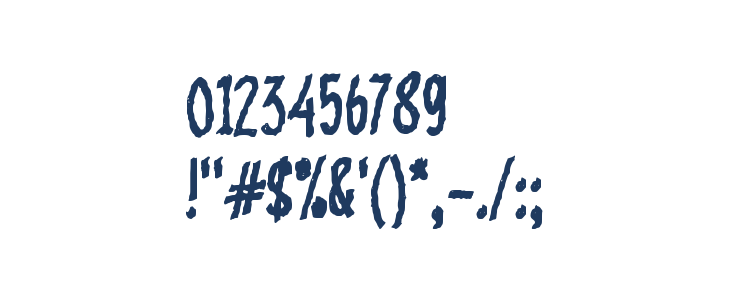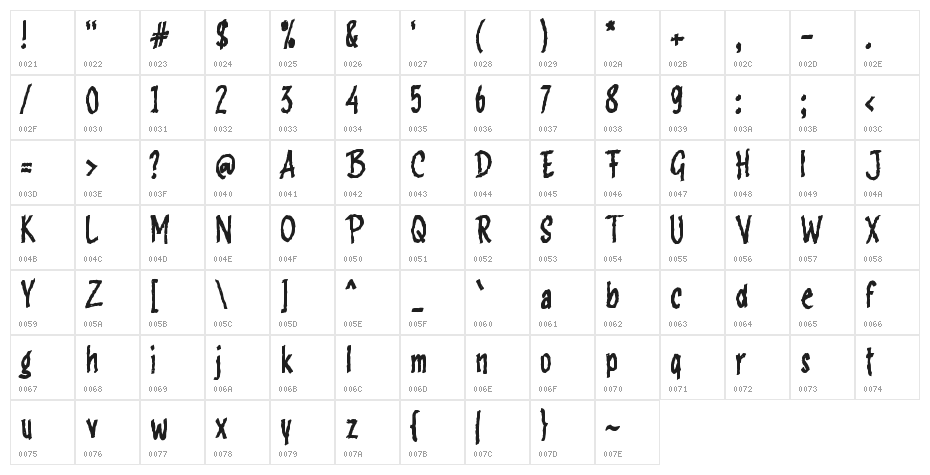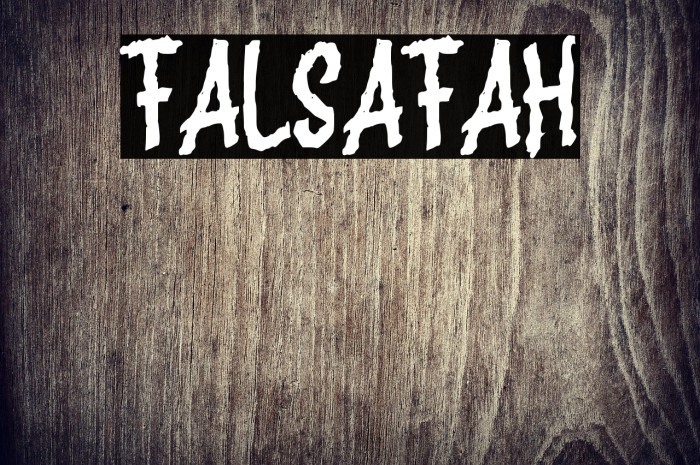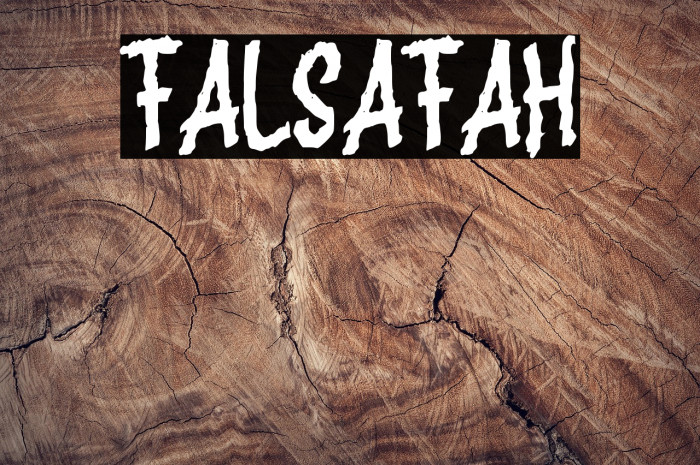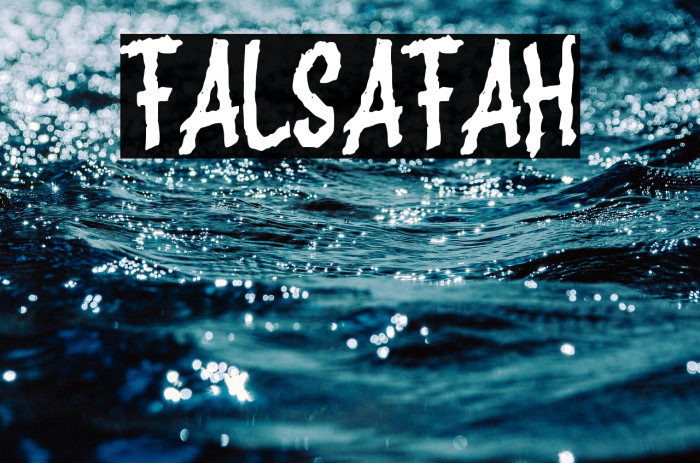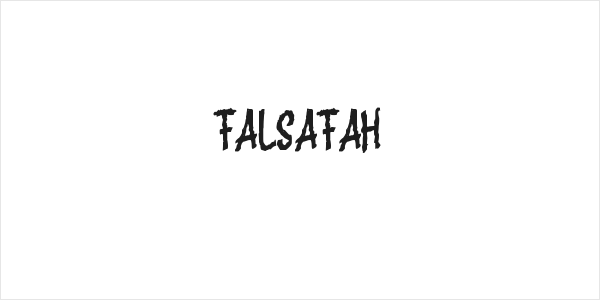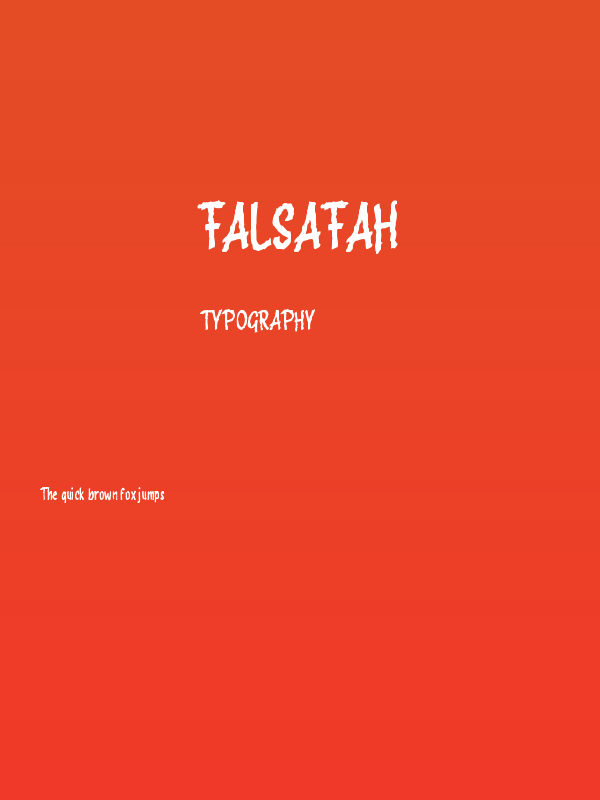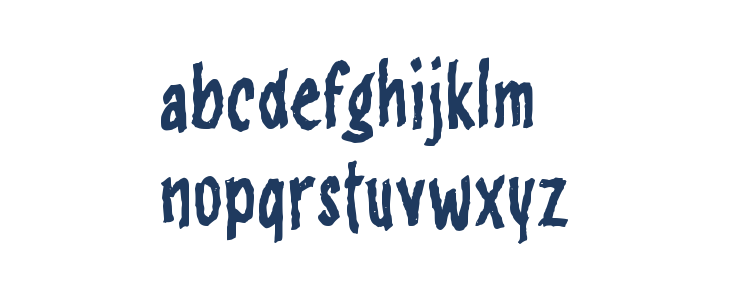
FALSAFAH Font
FALSAFAH Description
This font features a bold, hand-drawn style with irregular edges and a slightly rough texture, giving it a dynamic and energetic appearance. The characters are unevenly weighted, adding to the handcrafted feel, while maintaining legibility. The uppercase and lowercase letters are distinct, with a playful yet assertive presence. Numbers and special characters follow the same stylistic approach, ensuring consistency across all elements. This font's unique aesthetic makes it suitable for creative and expressive projects.
| Proposed Projects | Ideal for posters, album covers, artistic branding, and any project requiring a bold, handcrafted look. |